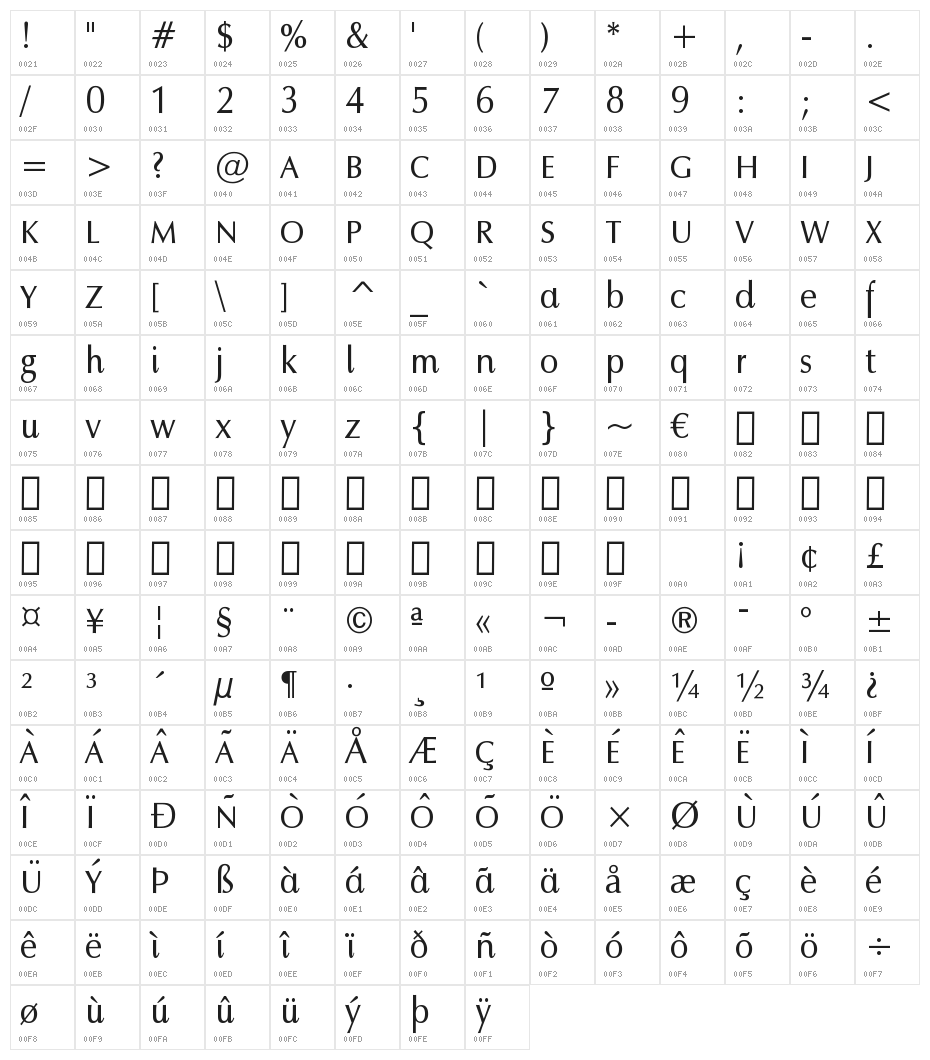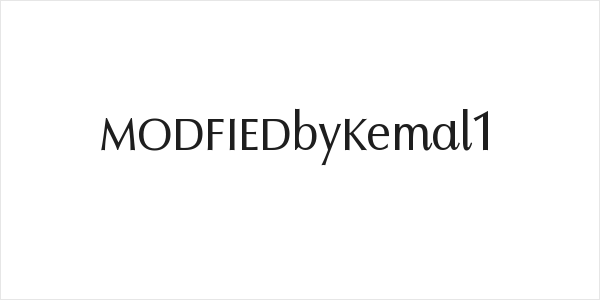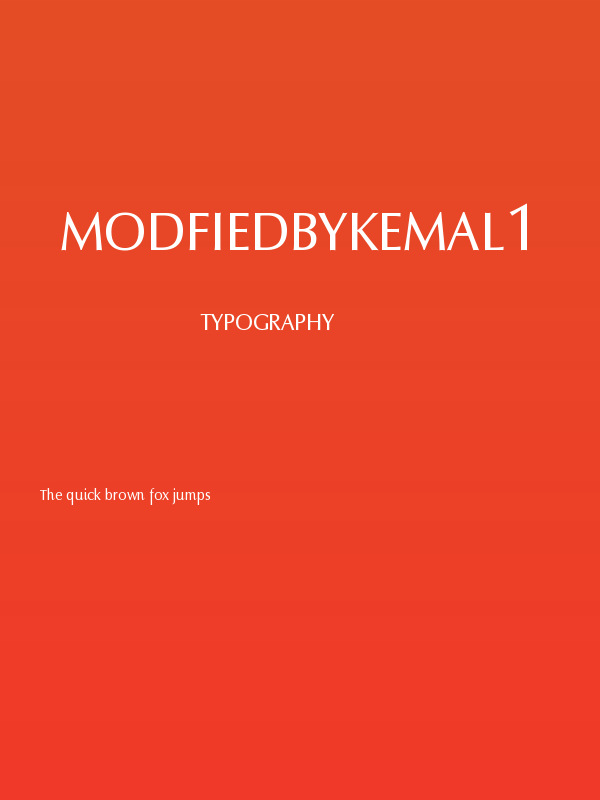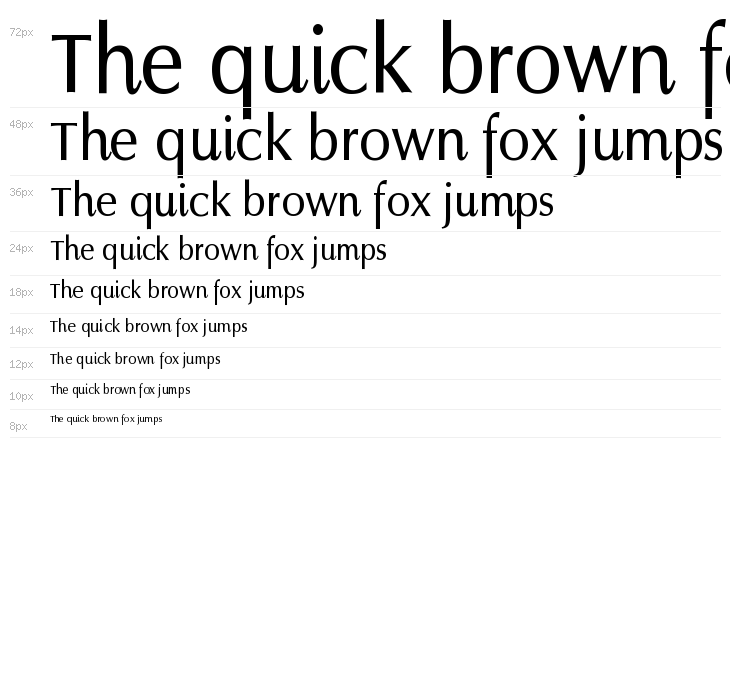
MODFIEDbyKemal1 Font
MODFIEDbyKemal1 Description
This font features a clean and modern sans-serif design, characterized by its smooth curves and sharp edges. The uppercase letters are bold and commanding, while the lowercase letters maintain a consistent and harmonious flow. The numerals are clear and easily distinguishable, making them ideal for both digital and print formats. Special characters are well-integrated and maintain the font's overall aesthetic. The font's simplicity and elegance make it versatile for various applications, from branding to editorial design.